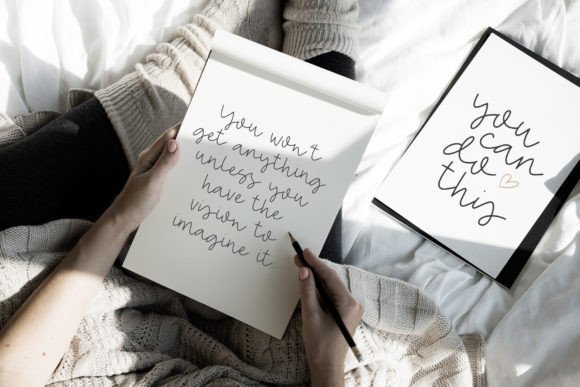
Classic Fairy Font
Classic Fairy is a gorgeous and bold handwritten font, crafted to give your headlines and logotype projects a stylish touch. This font reads as strong, confident, and dynamic and can add tons of nostalgic character to your designs.